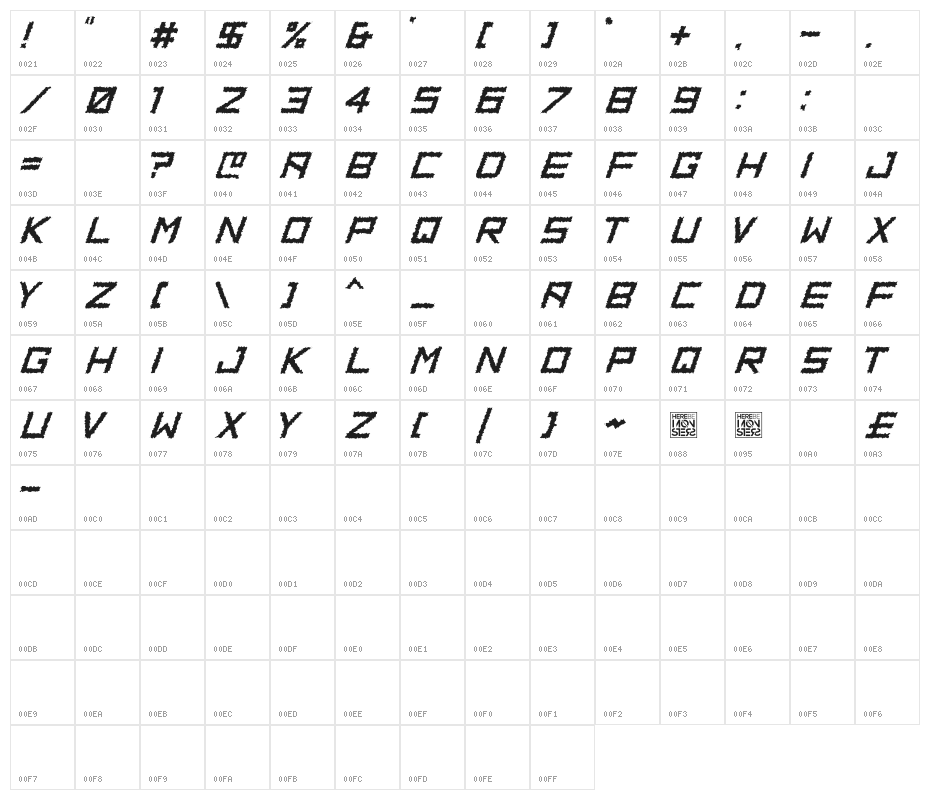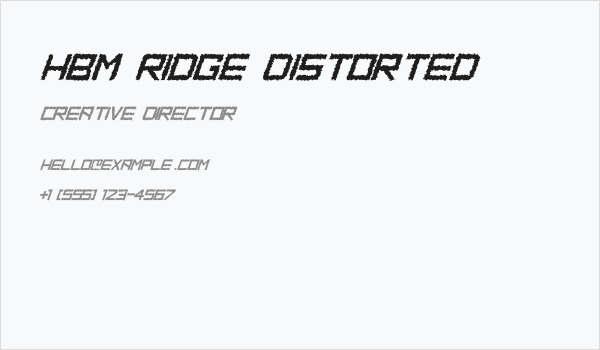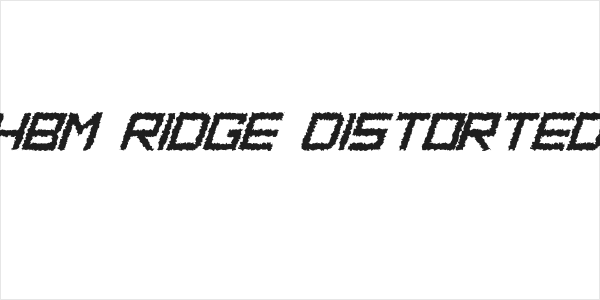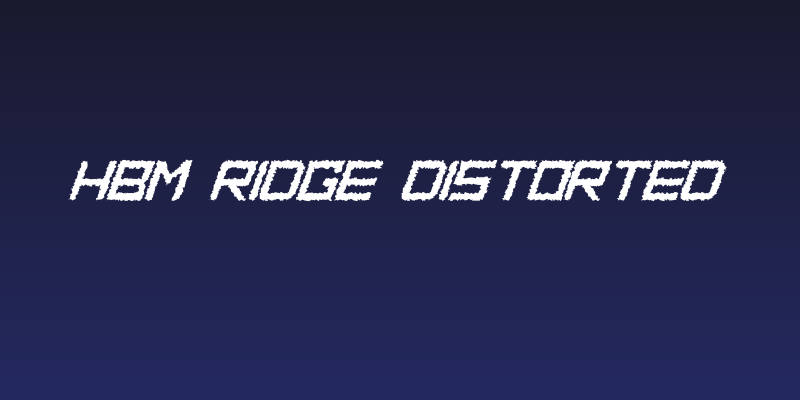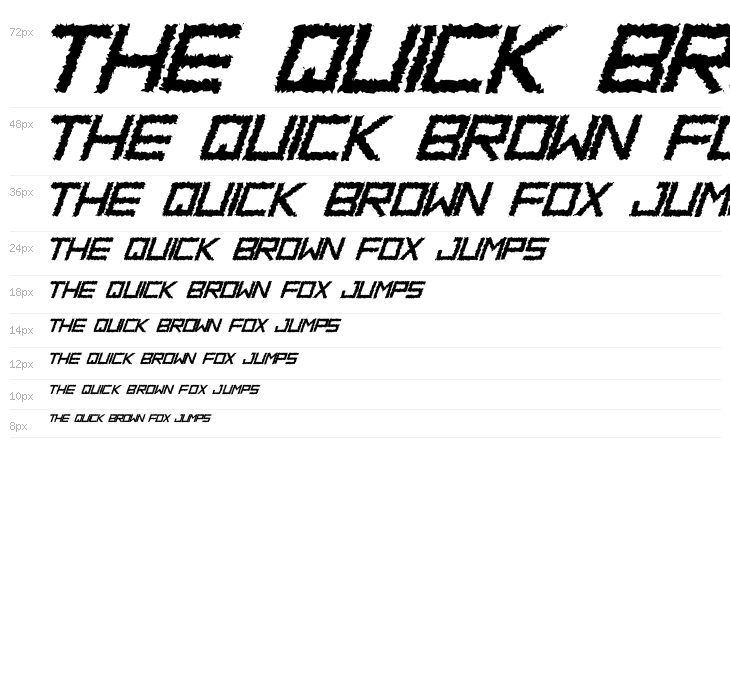
HBM Ridge Distorted Font
HBM Ridge Distorted Description
This font features a dynamic and edgy style, characterized by its jagged and distorted letterforms. Each character appears as if it has been crafted with a rough, textured brush, giving it a unique and rebellious appearance. The slanted orientation of the letters adds a sense of movement and urgency, making it stand out in any design. The uppercase and lowercase letters maintain a consistent style, while the numerals and special characters complement the overall aesthetic. This font is perfect for projects that require a bold and unconventional look.
| Overall Style | Modern, Edgy |
| Proposed Projects | Ideal for music album covers, edgy posters, streetwear branding, and rebellious-themed designs. |